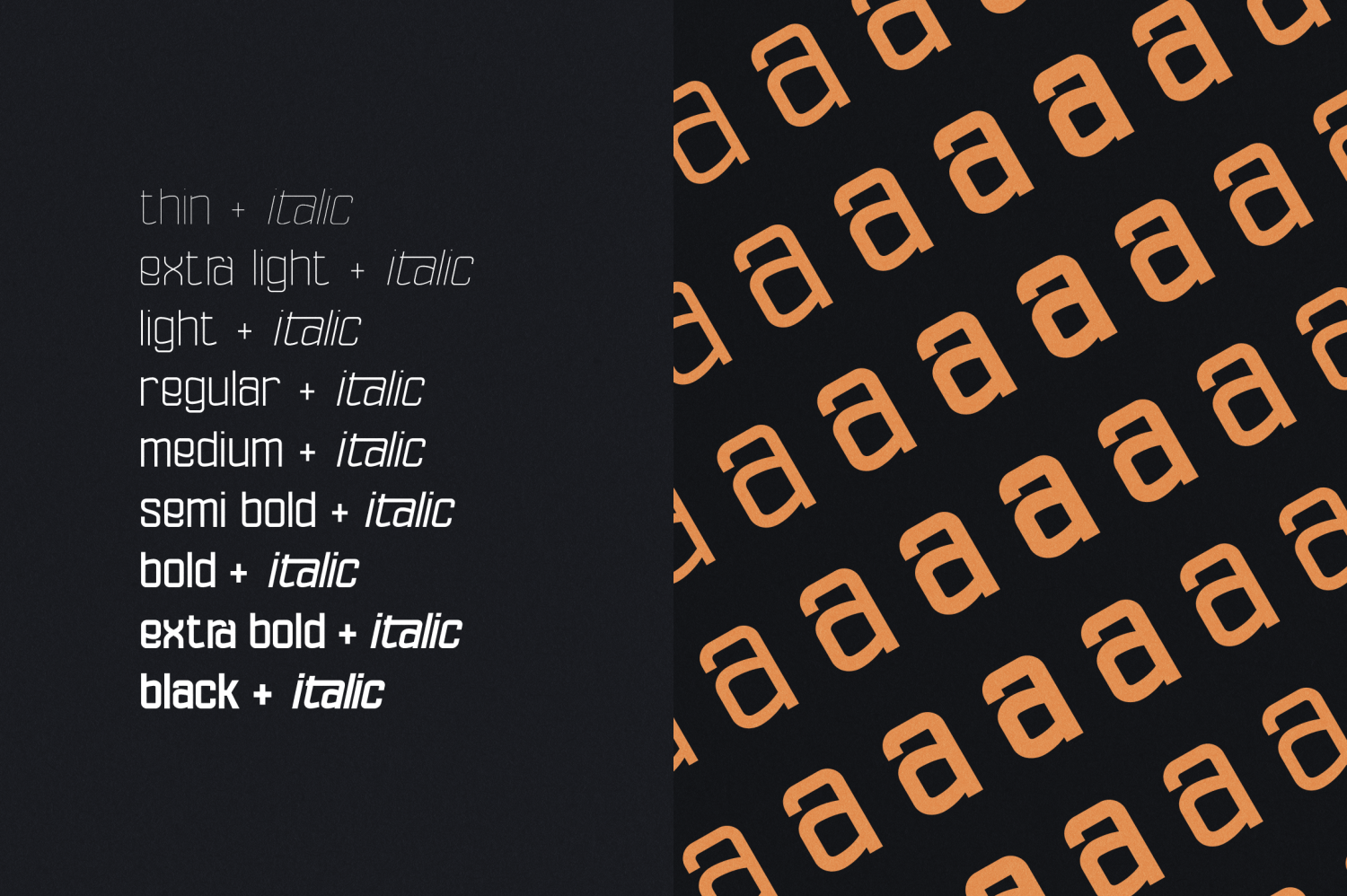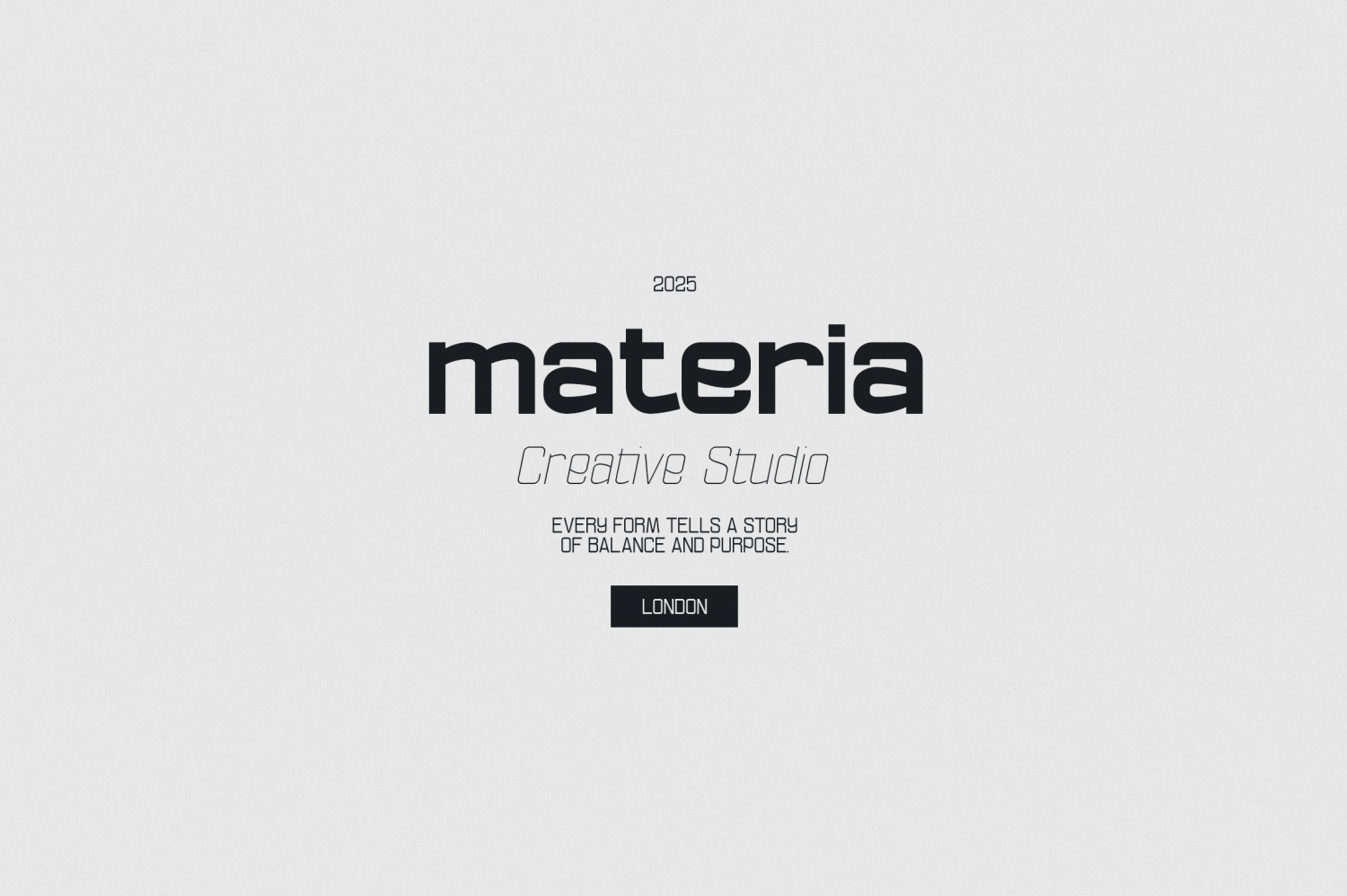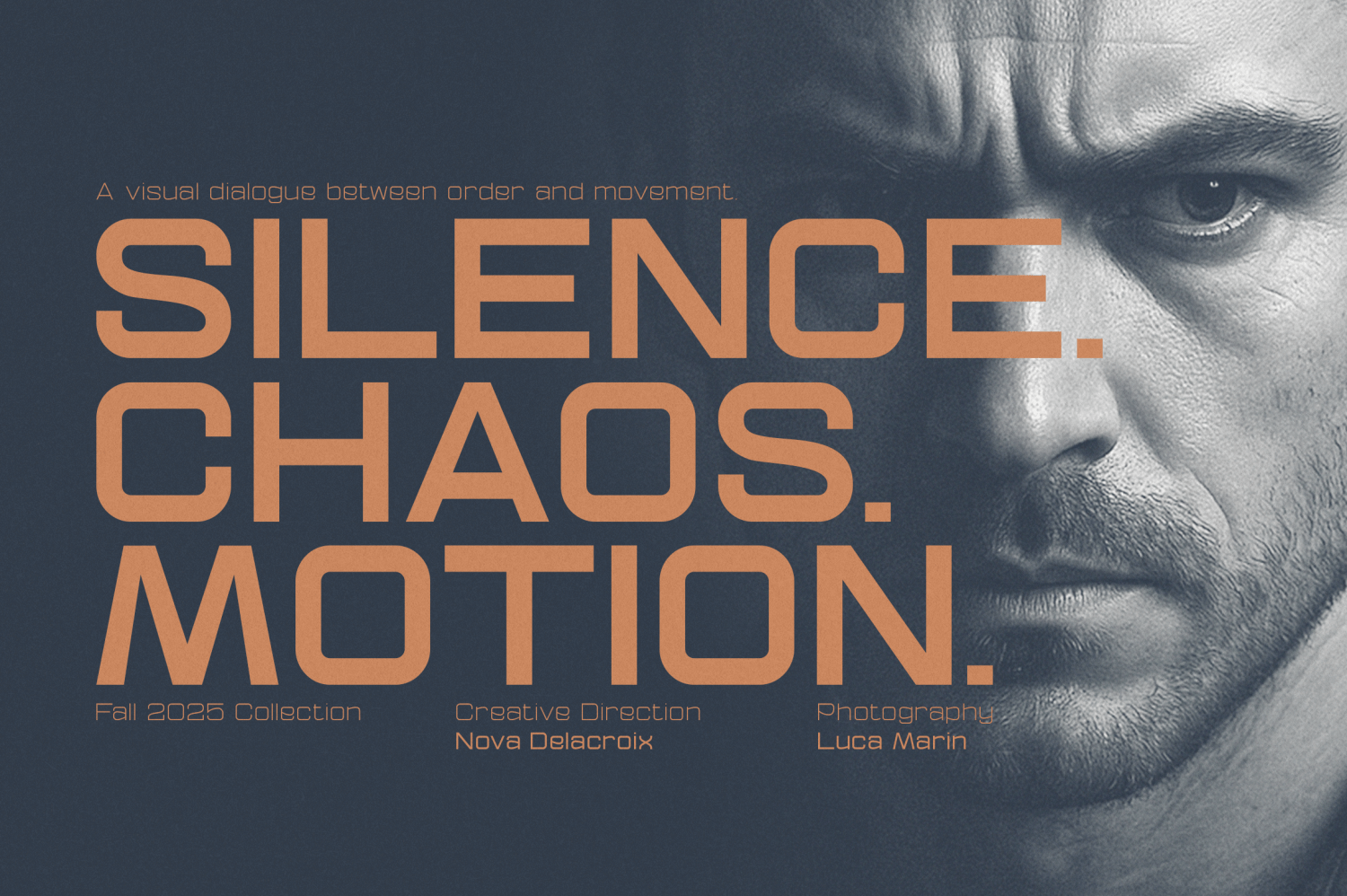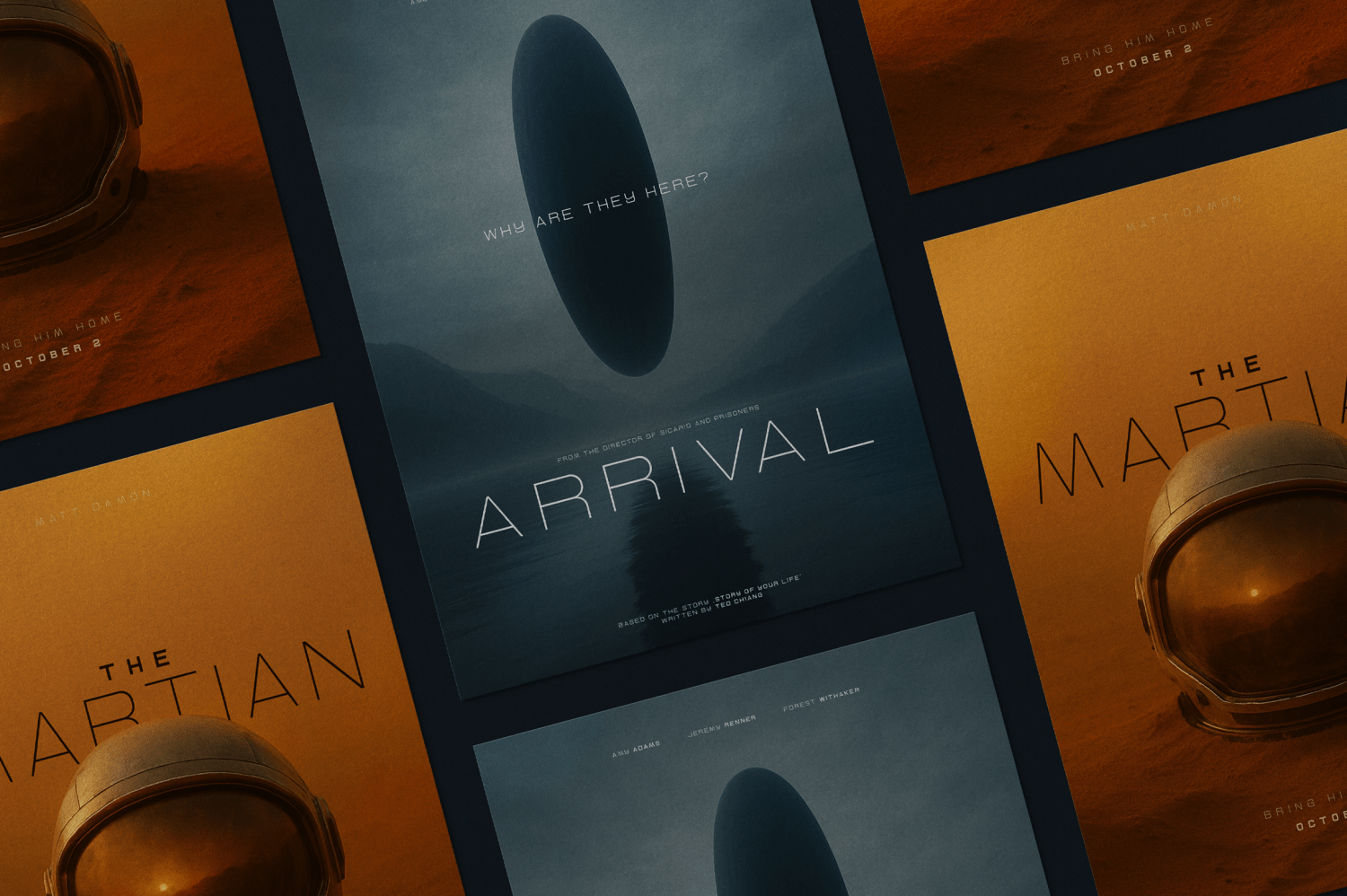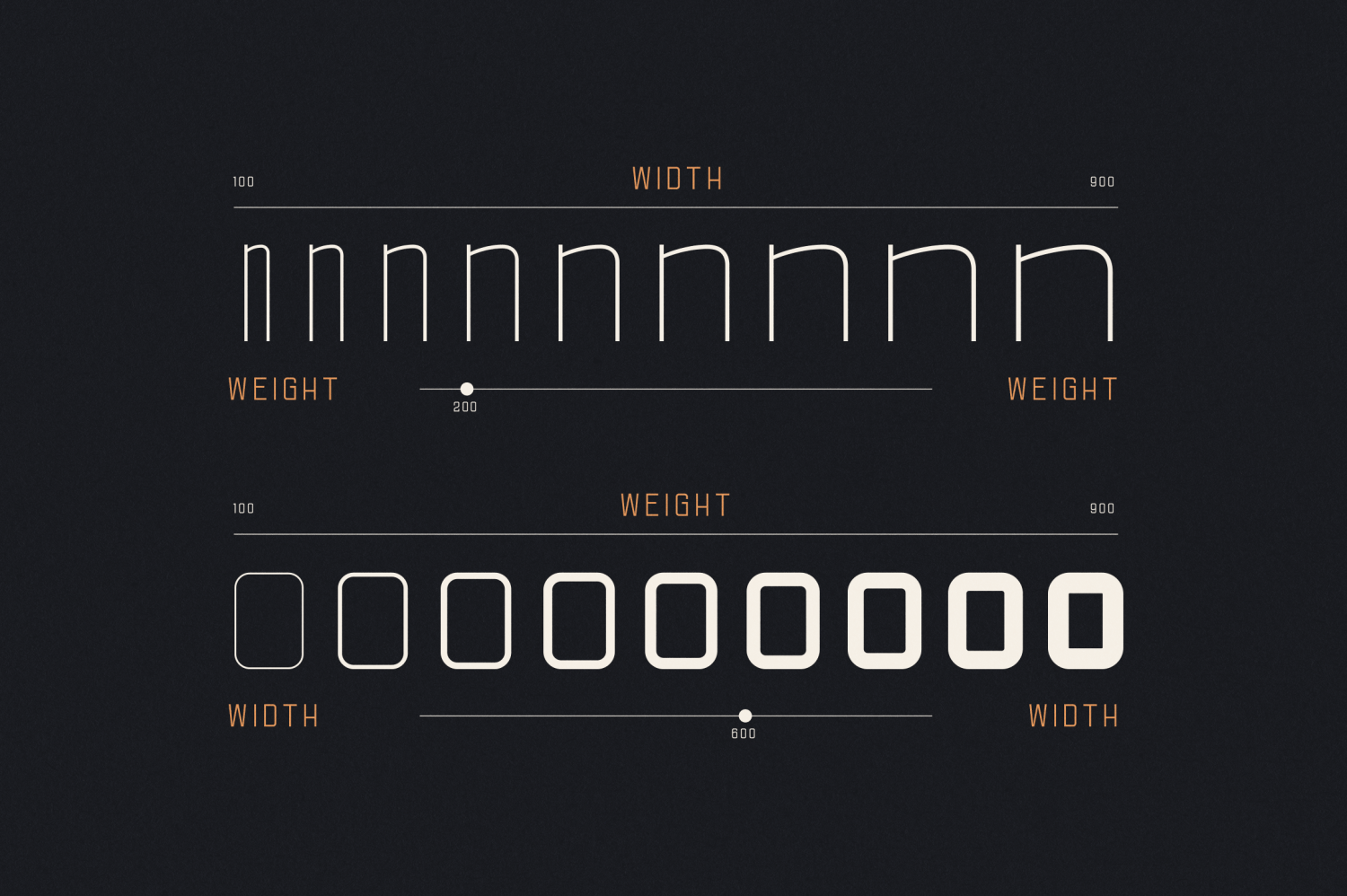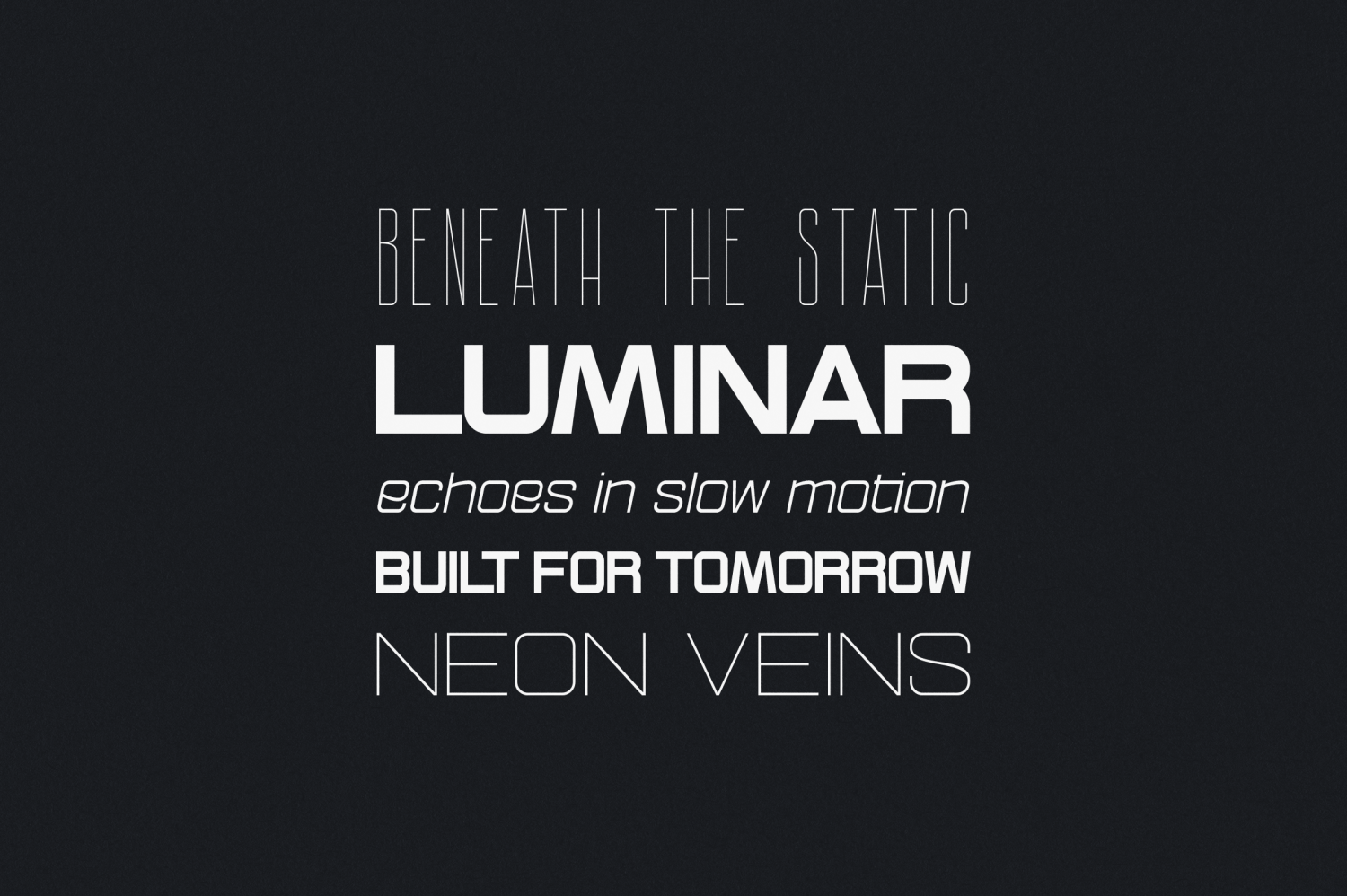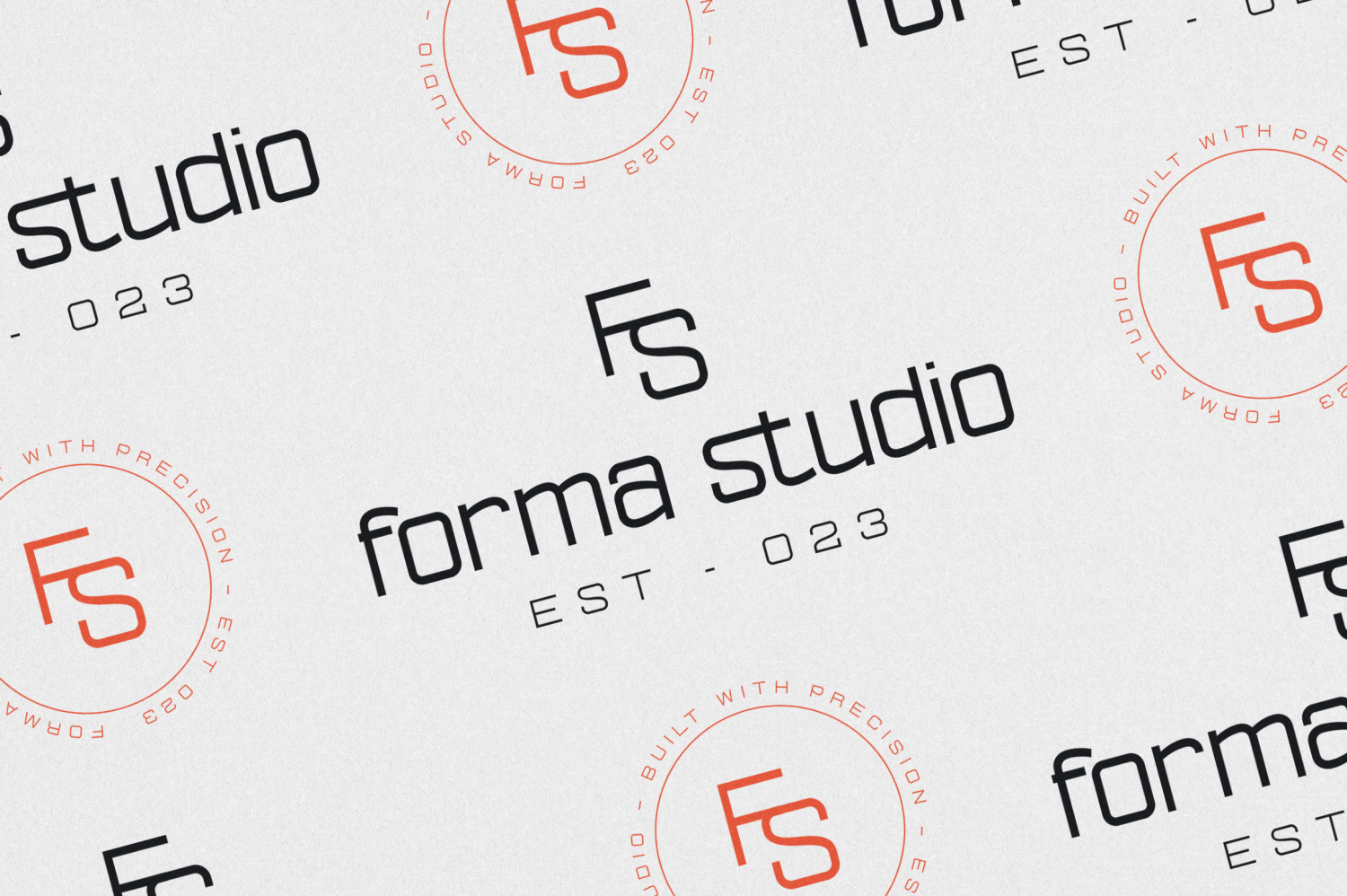
Ethere
Font Family by VP Creative Shop
Ethere — Futuristic Sans Serif Typeface with 162 Styles
Ethere is a modern sans-serif typeface crafted for creators, brands, and designers who value precision and versatility. Built to adapt across any creative medium, Ethere delivers a clean geometric form infused with subtle humanist touches — a balance of technology and emotion. With 162 unique font styles including weights from Thin to Black and matching Italics, Ethere offers full creative flexibility for branding, editorial design, packaging, posters, web, and UI. Its variable font support allows you to fine-tune width and weight seamlessly, giving total control over visual expression.
Every detail is refined — from its creative alternate glyphs and ligature options to extensive multilingual support covering 87+ languages. Whether you’re crafting a futuristic logo, cinematic title, or luxury brand identity, Ethere gives your typography a timeless yet progressive voice.
Font Features
• 162 font styles (9 weights × 9 widths × italics)
• Sans serif with geometric precision
• Creative alternates & ligature glyphs
• Full language support (87+ languages)
• Variable font technology (width + weight axes)
• Perfect for branding, headlines, interfaces & print
Ideal For
• Tech & creative branding
• Editorial and magazine layouts
• Logo and identity systems
• Posters, motion graphics & websites
• Luxury, fashion & futuristic aesthetics